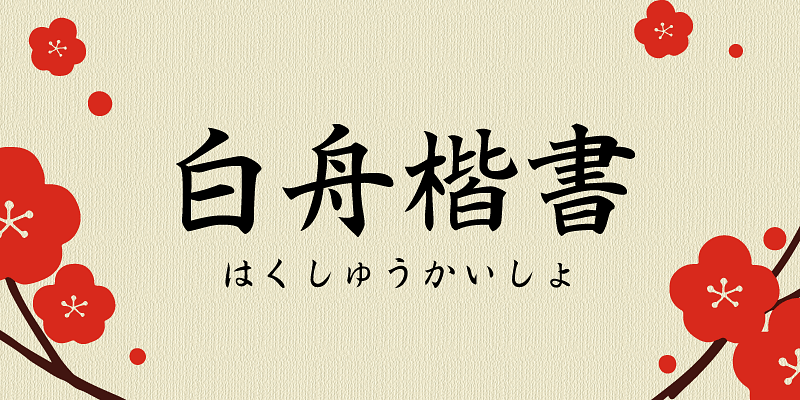
HOT-Kaishokk Font Free Download
HOT-Kaishokk Font Free Download is a refined Japanese typeface based on Kaisho (楷書), the standard script style known for its clarity, balance, and structured beauty. This font is perfect for educational materials, formal certificates, traditional product packaging, cultural content, and any project that benefits from a classic and dignified appearance.
HOT-Kaishokk Font Free Download features clear stroke endings, consistent spacing, and strong vertical alignment, making it exceptionally legible and suitable for both print and digital applications. It captures the elegance of handwritten kanji while maintaining the stability of a printed typeface—ideal for body text, signage, or formal headings.
Whether you're working on bilingual content, historical documents, or any design that requires a traditional and respectful tone, HOT-Kaishokk delivers with precision and poise.